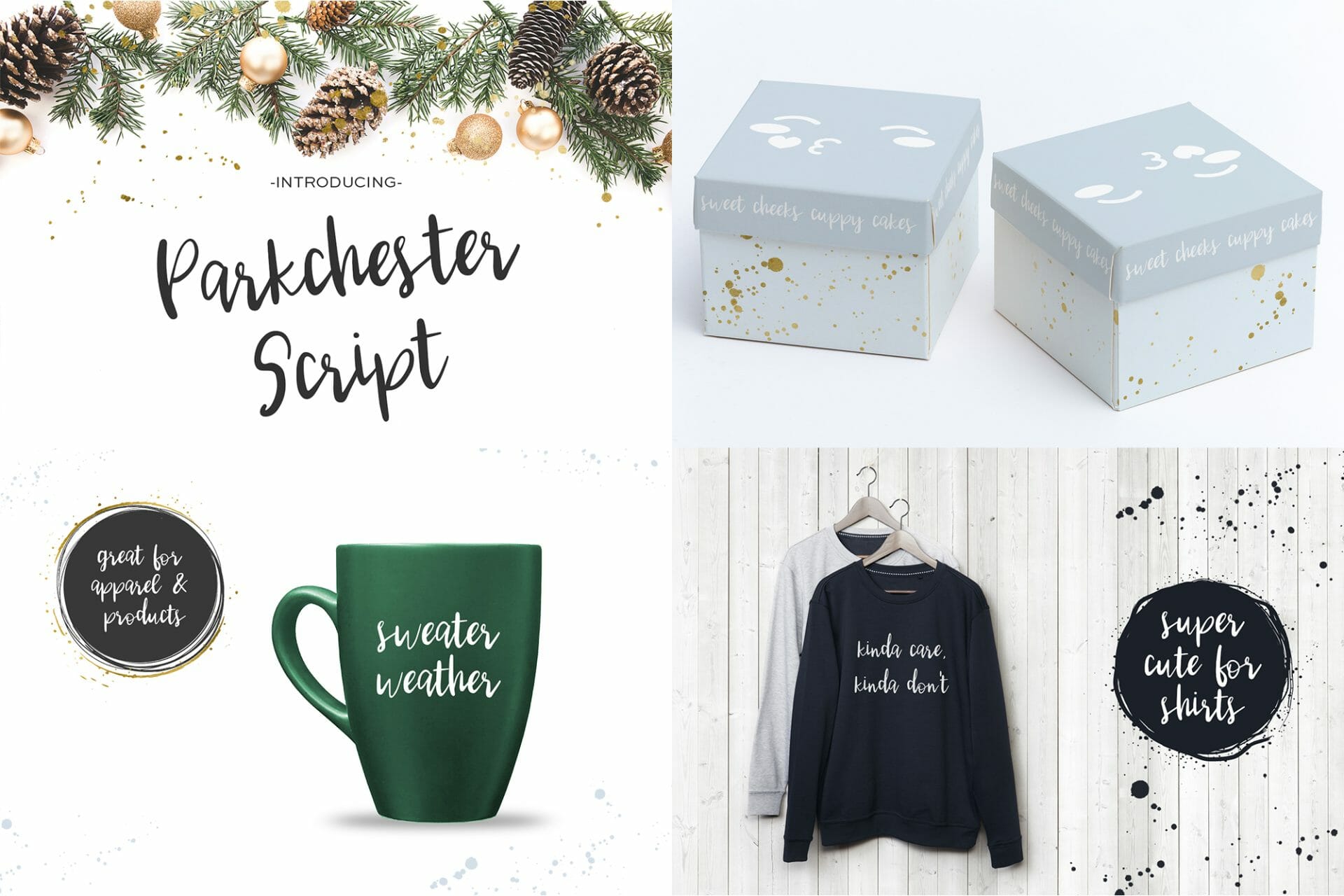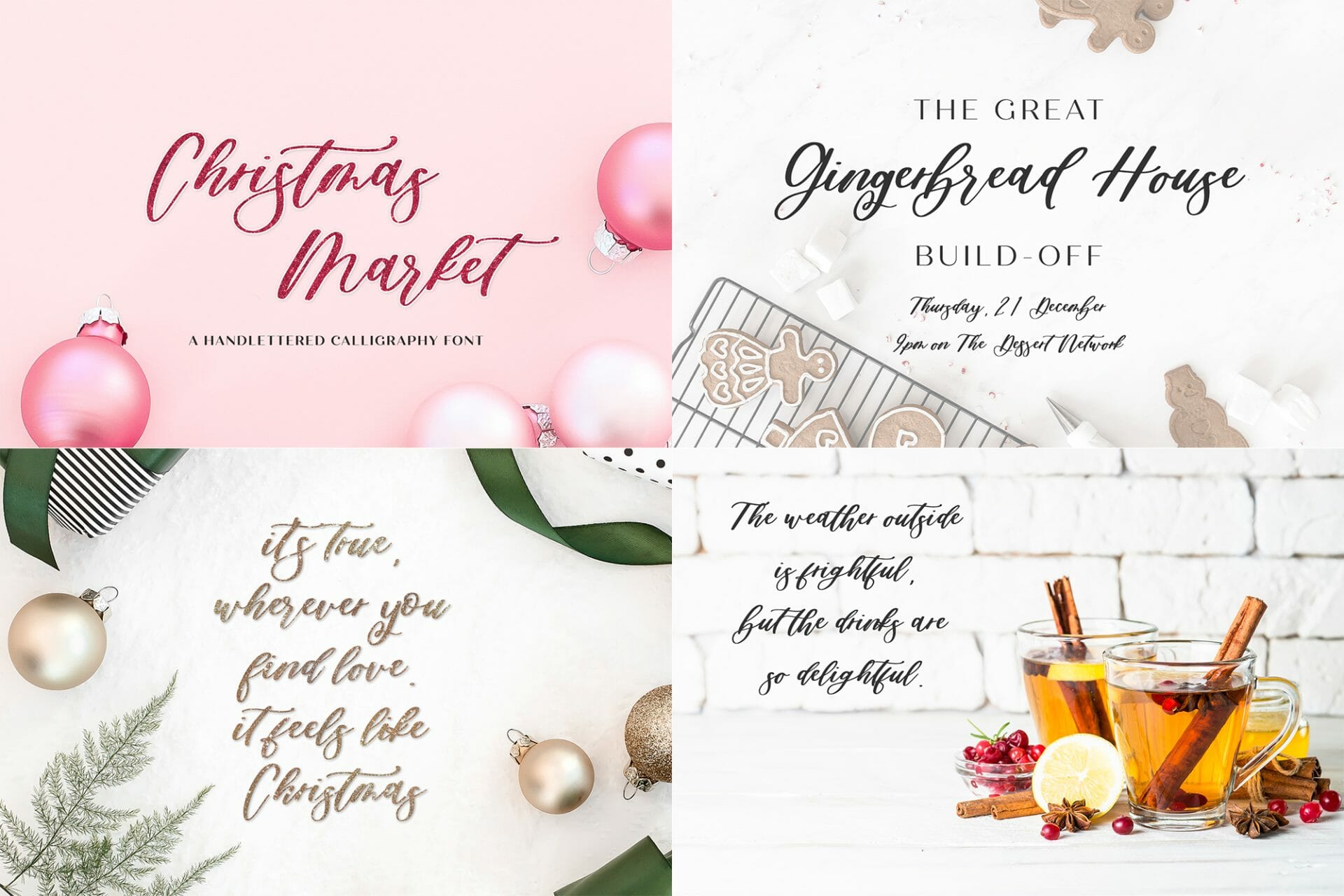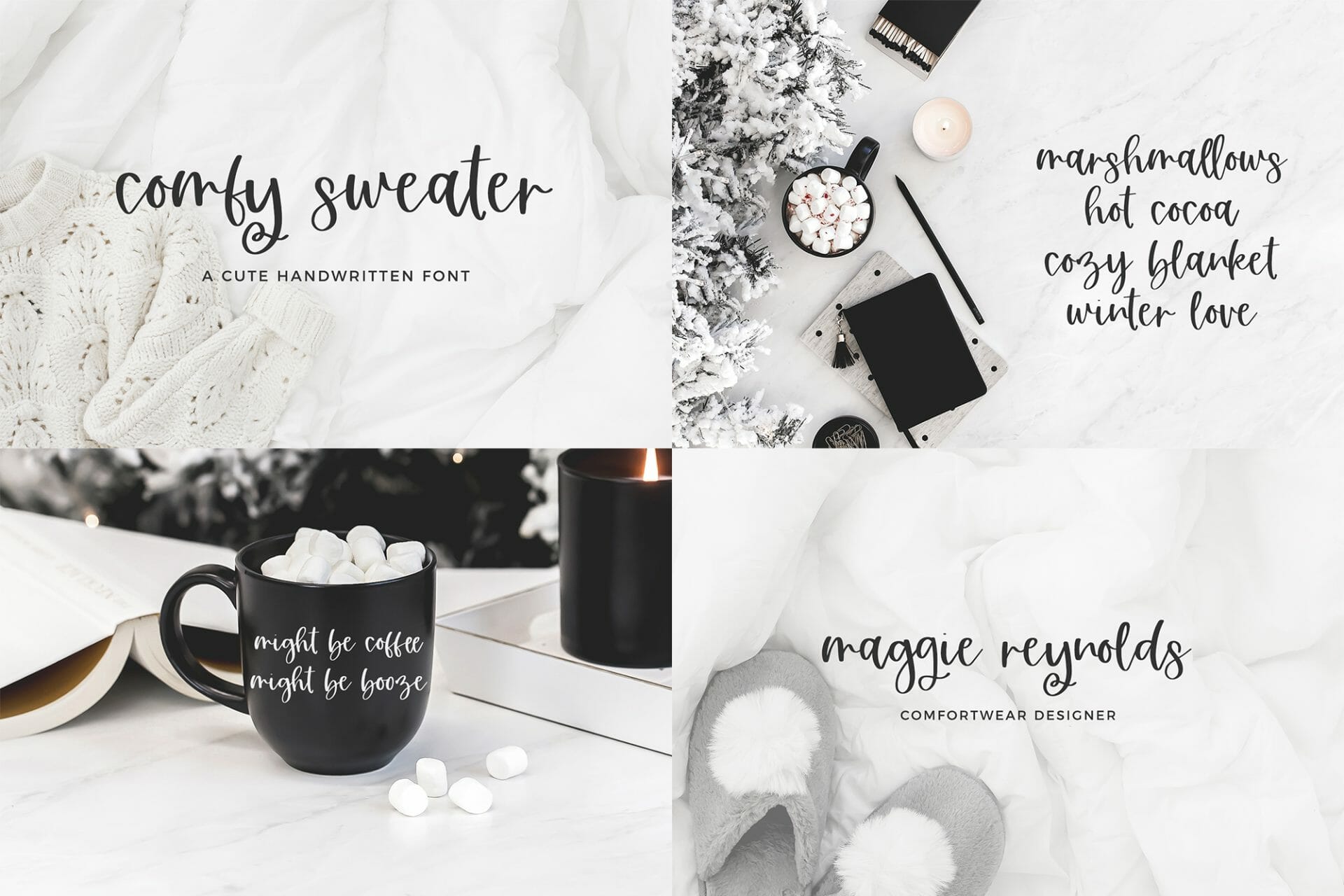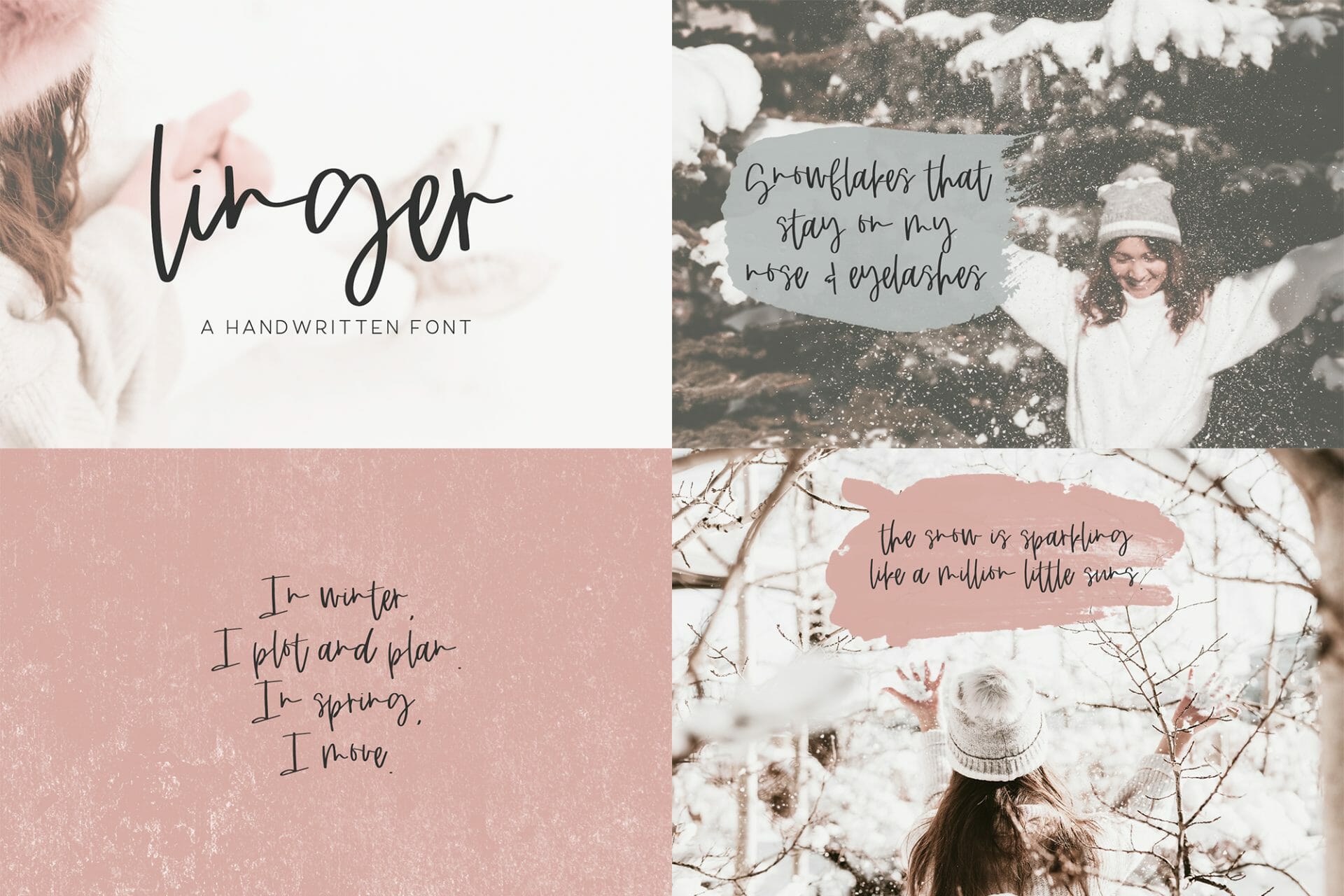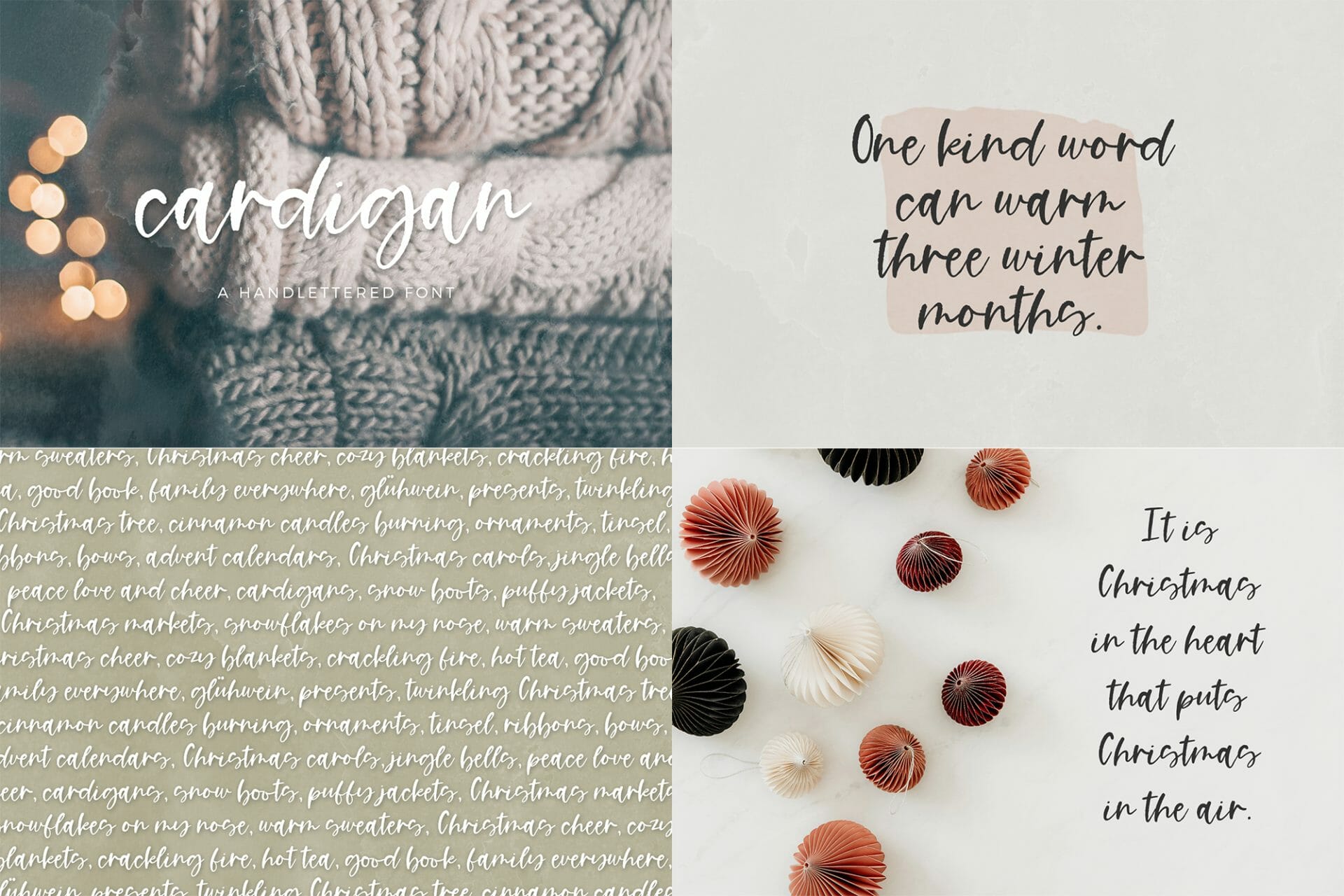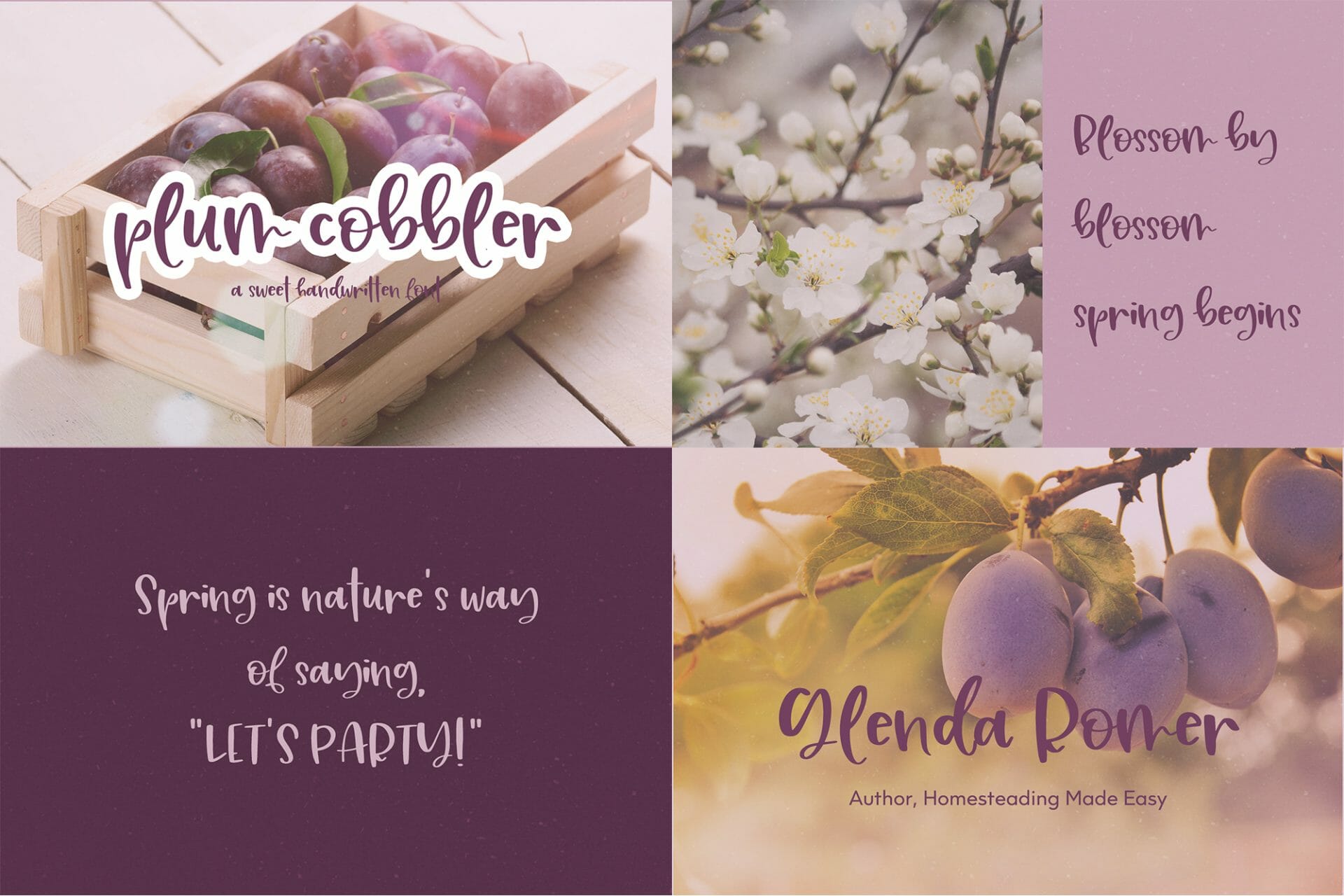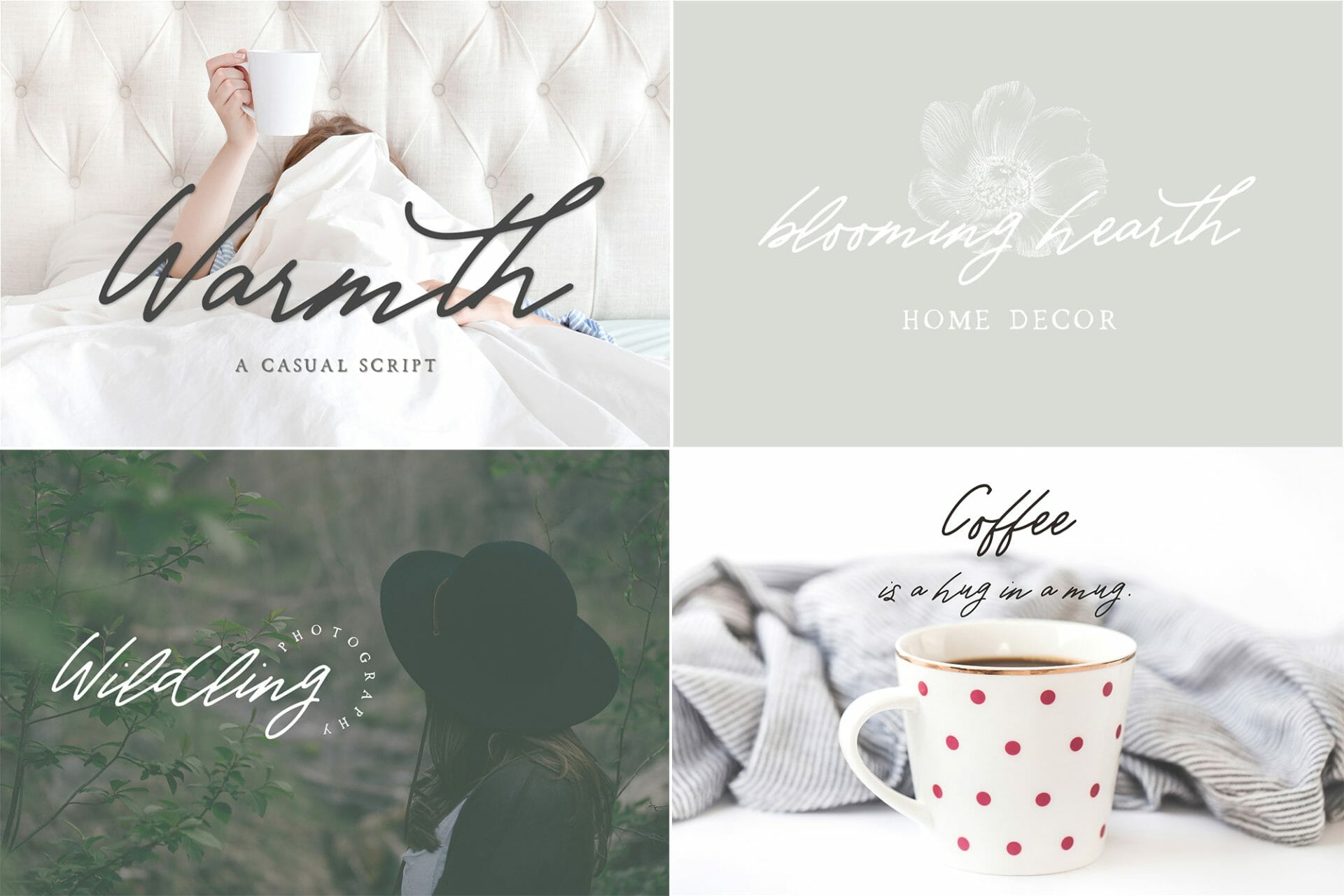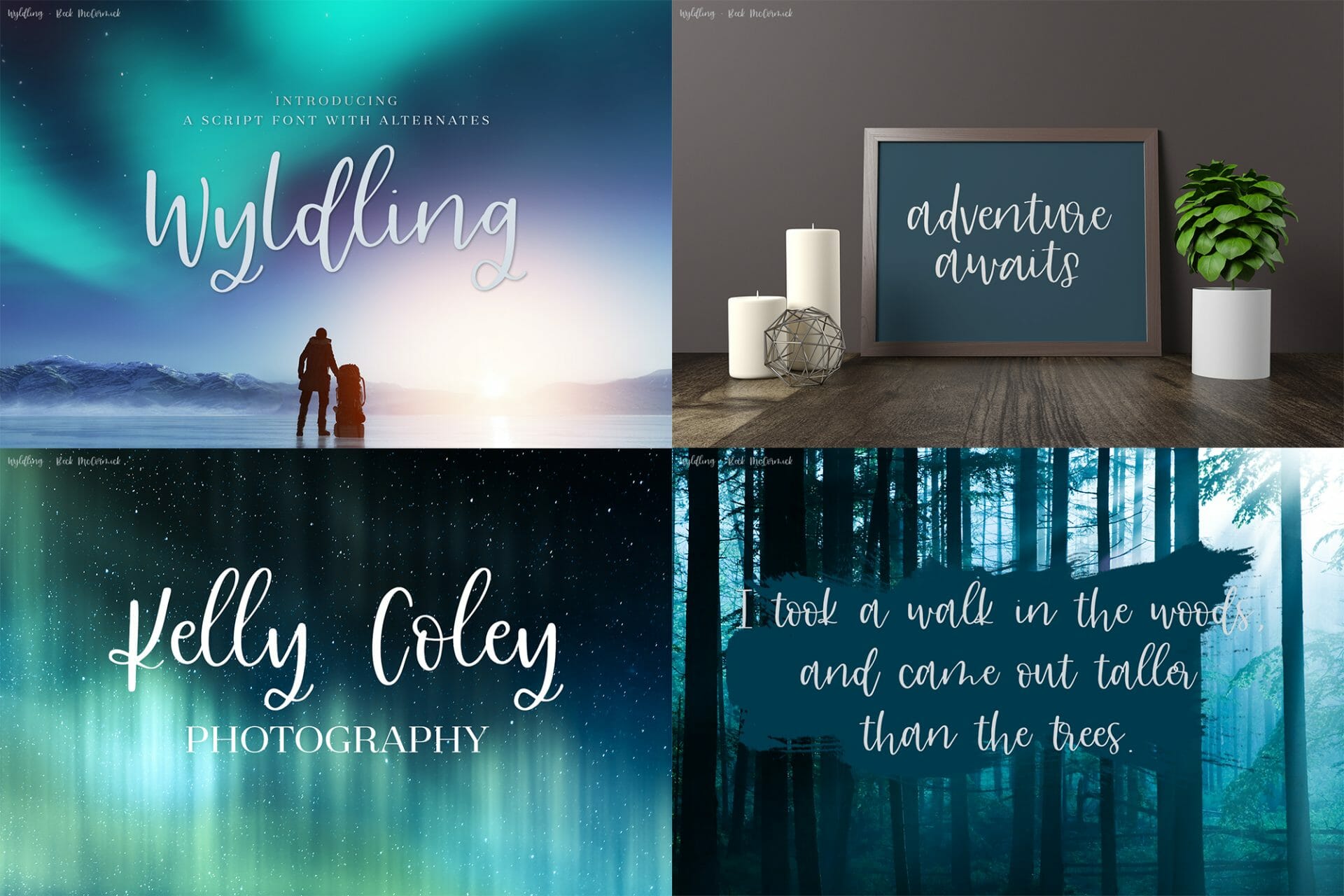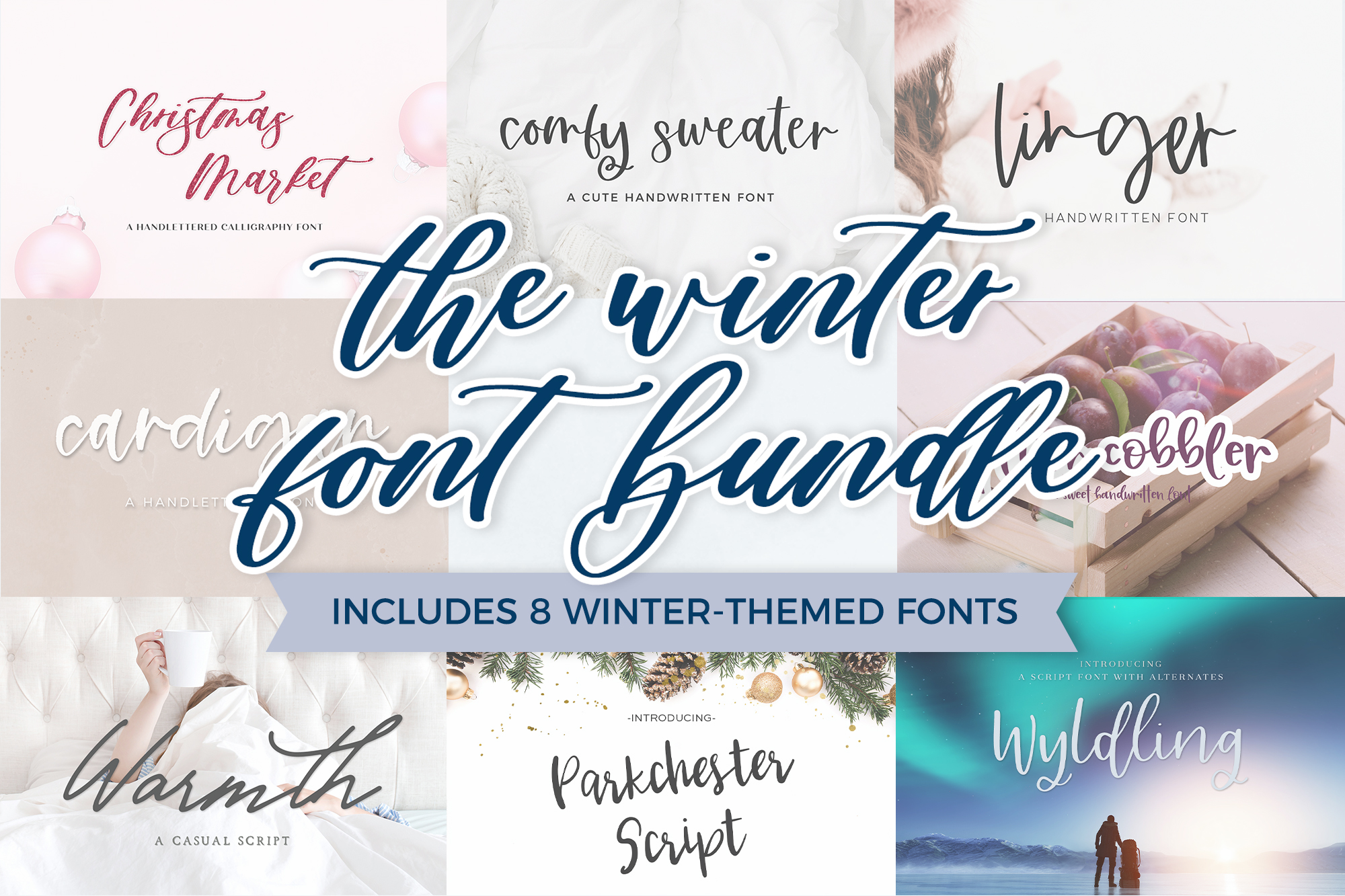
The Winter Font Bundle
Christmas Market
Comfy Sweater
Linger
Plum Cobbler
Cardigan
Warmth
Parkchester
Wyldling
Enjoy 8 fonts beautiful script fonts perfect for all types of winter-themed projects. All handlettered, these fonts will be perfect for holiday cards & designs, logos & branding, website elements, quote graphics, and crafting projects on your Cricut or Silhouette machine!
– Christmas Market Script
– Comfy Sweater Script
– Linger Script
– Plum Cobbler Script
– Cardigan Script
– Warmth Script
– Parkchester Script
– Wyldling Script